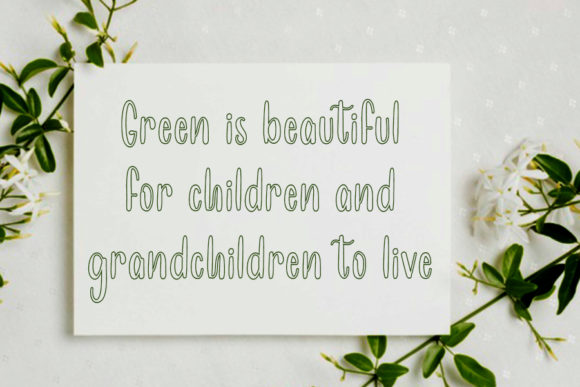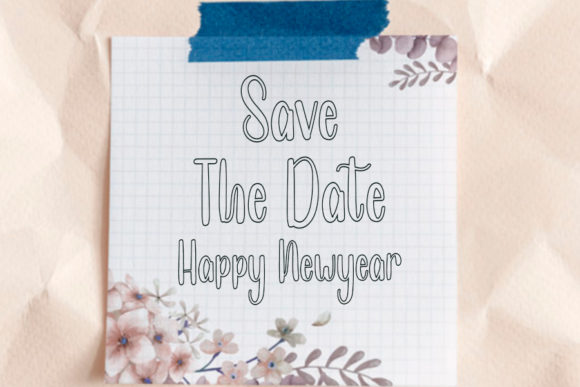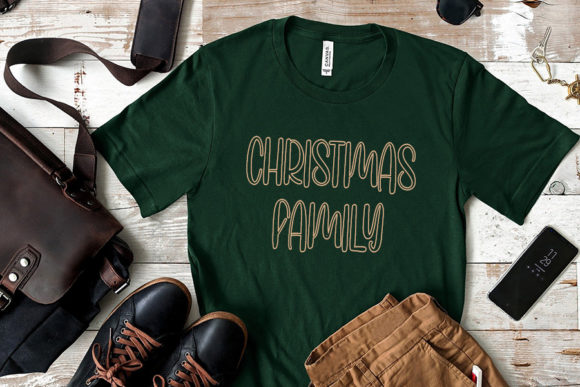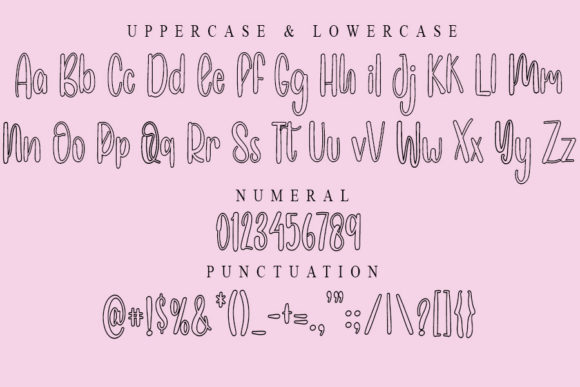
Unwrap the Magic of Christmas Font
Have you ever been brainstorming a project and suddenly, an idea strikes like a bolt of creative lightning? It’s a moment of pure excitement, when everything comes together and you can’t wait to bring it to life. For designers, this feeling is a regular occurrence, and it’s exactly what Christmas Font is designed to capture.
Christmas Font is a clean and friendly handwritten font, perfect for adding a personal touch to your most creative ideas. Whether you’re designing holiday cards, gift tags, or even a festive website, this font is sure to make your projects shine. Its versatility and charm make it a valuable asset for any designer looking to add a little extra magic to their work.
Key Features of Christmas Font
- Unique Characteristics: This font features a festive and playful design, with intricate details and ornaments that evoke the spirit of Christmas.
- Style Options: Christmas Font includes various style options, including bold, italic, and regular, allowing designers to create a range of visual effects.
Review of “Christmas Font”
I recently had the chance to work with “Christmas Font” and I must say it’s a mixed bag. ✨ On the positive side, the font does have a certain charm to it, perfect for any holiday-themed project. The bold and playful style is sure to grab attention and evoke a sense of festive cheer. The font is also quite versatile and can be used for a variety of applications, from social media posts to invitations and even website headers.
However, there are a few limitations that I think are worth mentioning. ⚠️ For one, the font can feel a bit overused and clichéd at times. It’s not uncommon to see it used in a wide range of holiday-themed projects, which can make it feel less unique and special. Additionally, the font can be a bit difficult to read at smaller sizes, which may limit its use in certain applications.
Pros:
- Charming and playful style
- Perfect for holiday-themed projects
- Highly versatile
Cons:
- Feels overused and clichéd at times
- Difficult to read at smaller sizes
Overall, I think “Christmas Font” is a decent choice for holiday-themed projects, but it’s not without its limitations. If you’re looking for a unique and special font to add some holiday cheer to your project, you may want to consider other options. But if you’re looking for a classic, playful font that’s perfect for the holiday season, then “Christmas Font” may be just what you’re looking for.
Christmas font is commonly used for:
- Holiday greeting cards and invitations.
- Seasonal social media graphics and posts.
- Decorative signage and banners.
- Gift tags and wrapping paper designs.
To get the most out of Christmas font, try the following:
- Pair it with festive colors and patterns.
- Use it in combination with other holiday-themed graphics and elements.
What font styles are included in the Christmas Font package?
The Christmas Font package includes a range of styles, including Regular, Italic, Bold, and Bold Italic. These styles can be used individually or in combination to create a unique and festive design. Additionally, the font includes a range of ornaments and decorations that can be used to add a touch of holiday cheer to your designs.